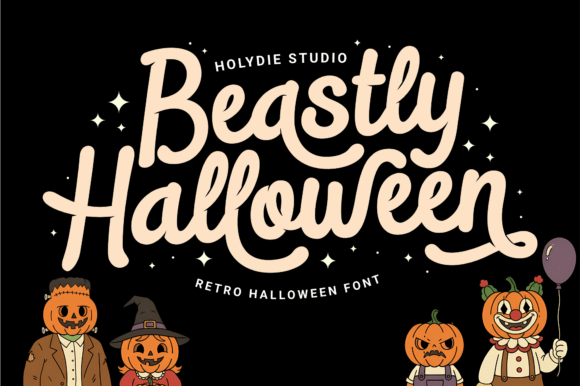
Unleash the Spooky Charm with Beastly Halloween Font
As the spookiest time of the year approaches, designers and creatives are on the lookout for the perfect font to add a touch of vintage fun to their Halloween designs. Look no further than the Beastly Halloween Font, a charming and spooky retro font that’s perfect for creating memorable party invitations, posters, merchandise, and social media graphics.
What is Beastly Halloween Font?
Beastly Halloween is a display font that combines the elegance of mid-century lettering with a dash of cartoonish mischief. Its bold, hand-drawn curves and playful style make it ideal for creating festive and fun designs that are perfect for the Halloween season. The font features thick, rounded letters that offer a warm and approachable feel, balanced by just the right amount of seasonal spookiness.
Unique Features of Beastly Halloween Font
Beastly Halloween Font is adorned with subtle starbursts and paired with adorable pumpkin-headed characters, making it perfect for creating cheerful, spooky content. The font also features:
- Bold curves and playful swashes
- Smooth, flowing strokes
With these unique features, Beastly Halloween Font is the ultimate font for Halloween designs with a fun, family-friendly twist.
Use Cases for Beastly Halloween Font
Beastly Halloween Font is versatile and can be used for a variety of design projects, including:
- Retro Halloween party invitations
- Pumpkin patch or fall festival flyers
- Trick-or-treat bag designs
- Children’s Halloween books or titles
- Seasonal branding and packaging
- Social media posts for Halloween campaigns
Whether you’re designing for a spooky party or a fun family event, Beastly Halloween Font is the perfect choice.
Nostalgic Vibes
Beastly Halloween Font exudes nostalgic vibes reminiscent of 1950s Halloween cartoons, candy packaging, and classic costume ads. The font’s vintage charm is perfect for designers who want to create designs that are both spooky and fun.
With Beastly Halloween Font, you can create designs that are:
- Festive without being frightening
- Fun and family-friendly
- Perfect for seasonal designs
Why Choose Beastly Halloween Font?
Beastly Halloween Font is the perfect choice for designers who want to create unique and attention-grabbing designs for the Halloween season. Here are just a few reasons why:
- Unique and charming design
- Perfect for a variety of design projects
- Nostalgic vibes that evoke a sense of vintage fun
Tips for Using Beastly Halloween Font
Here are a few tips for using Beastly Halloween Font in your designs:
- Use it for headlines and titles to add a touch of spooky charm
- Pair it with other fonts to create a unique and eye-catching design
- Experiment with different colors and textures to add depth and interest
- Use it to create custom illustrations and graphics
Beastly Halloween Font is a charming and spooky retro font that’s perfect for adding a touch of vintage fun to your Halloween designs. With its bold curves, playful swashes, and smooth, flowing strokes, this display font is ideal for creating memorable party invitations, posters, merchandise, and social media graphics.